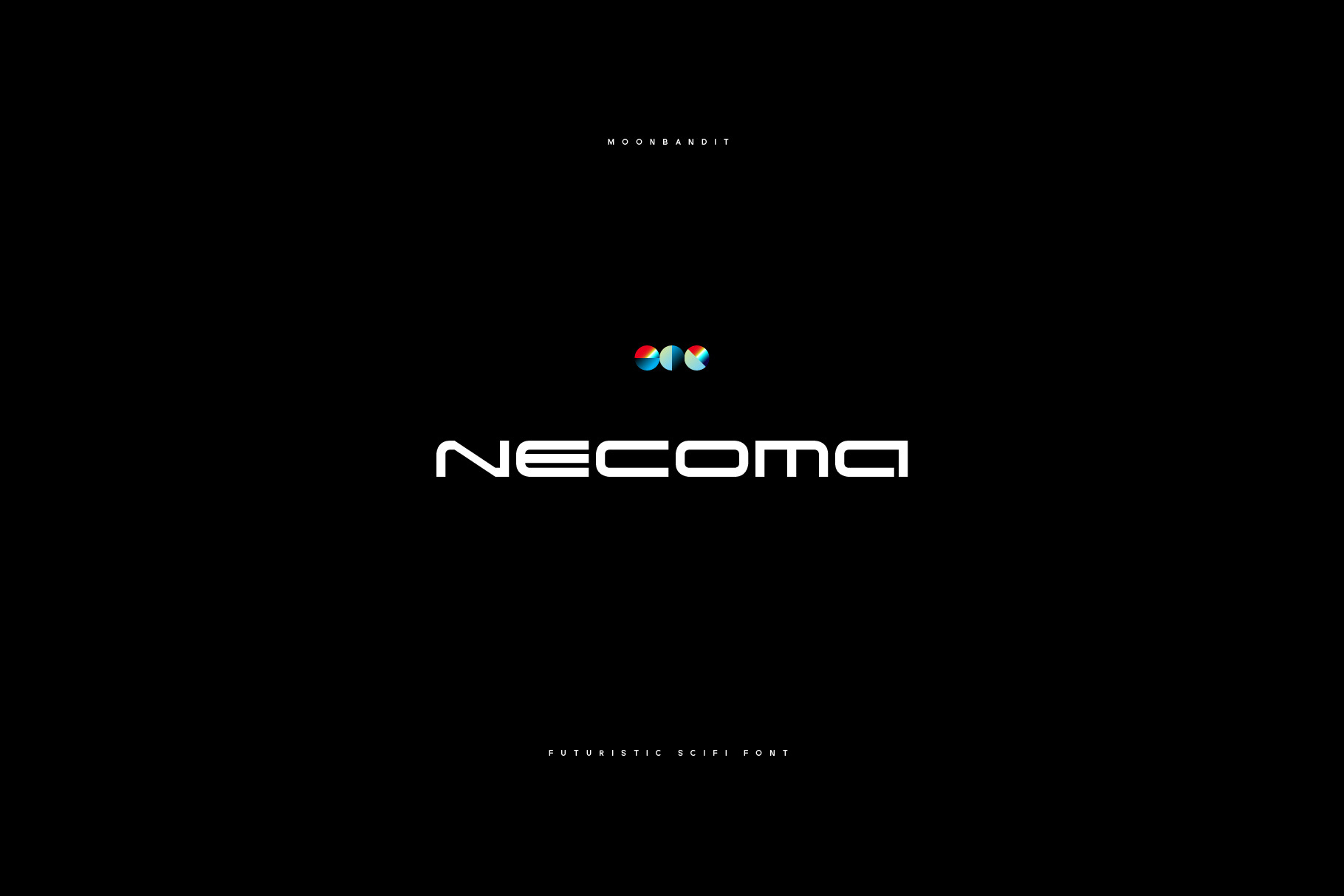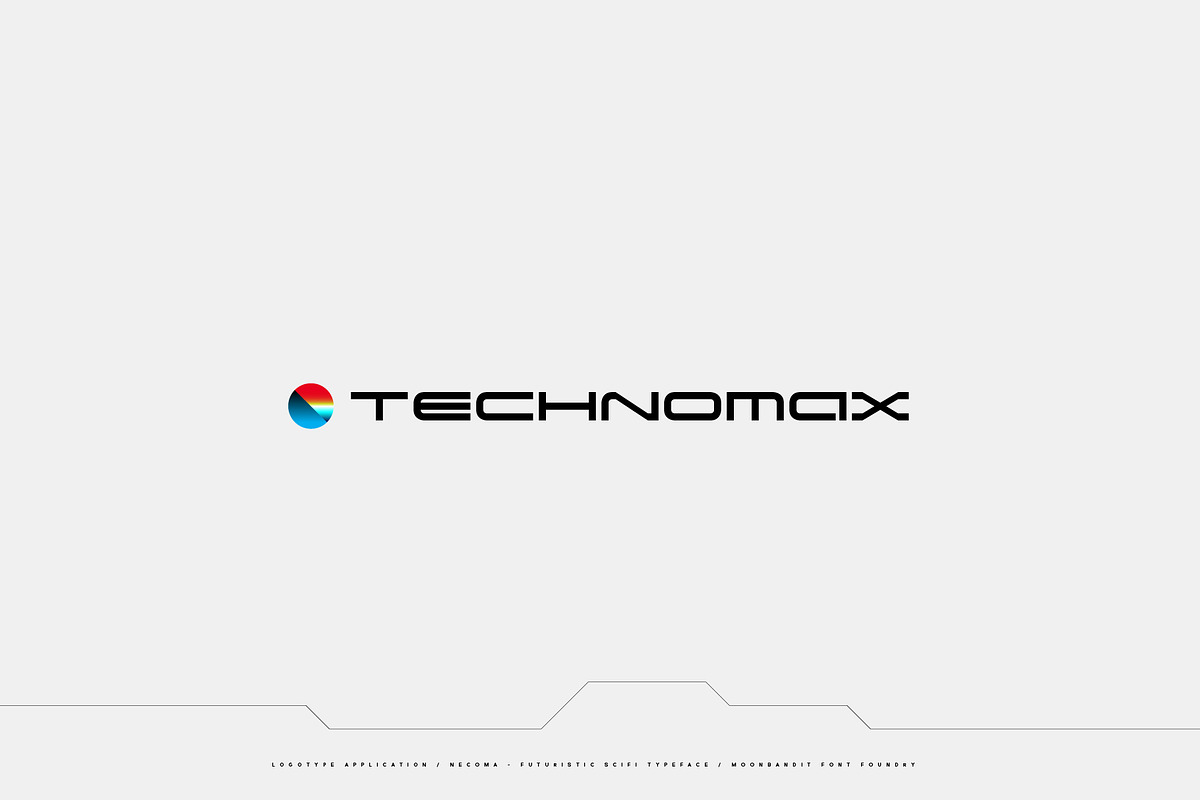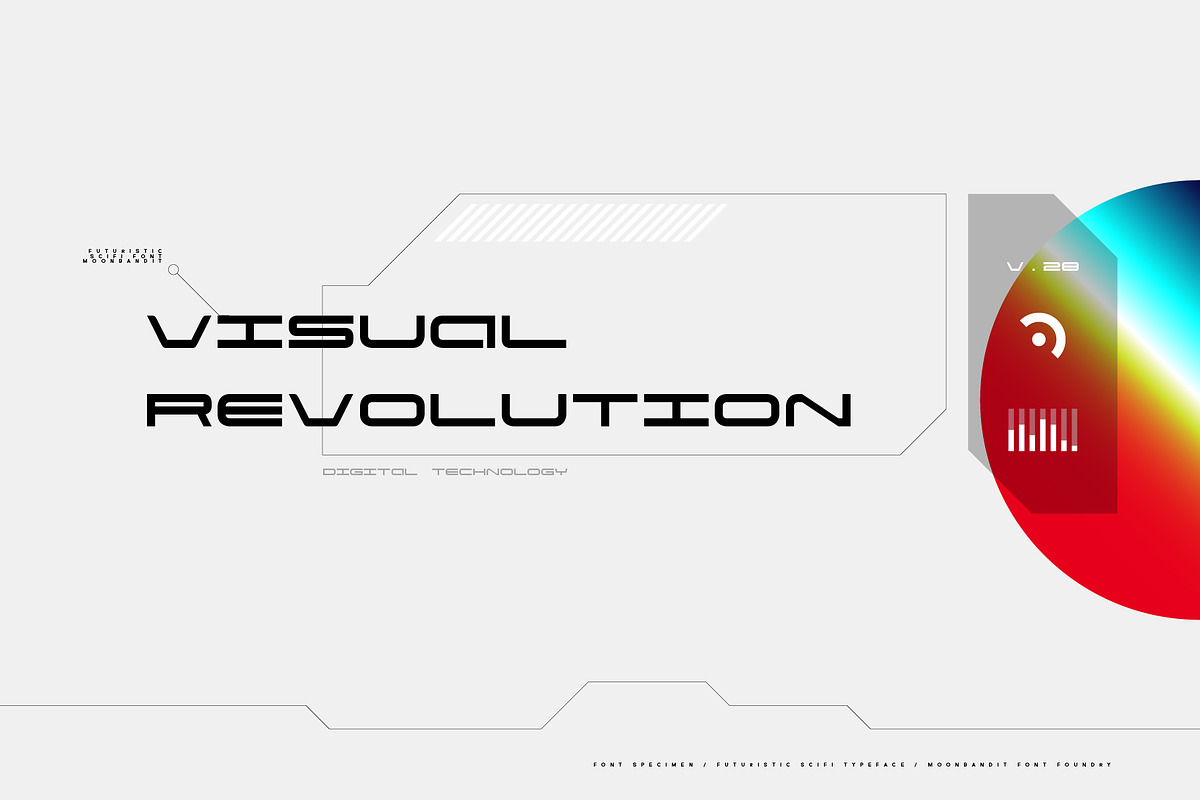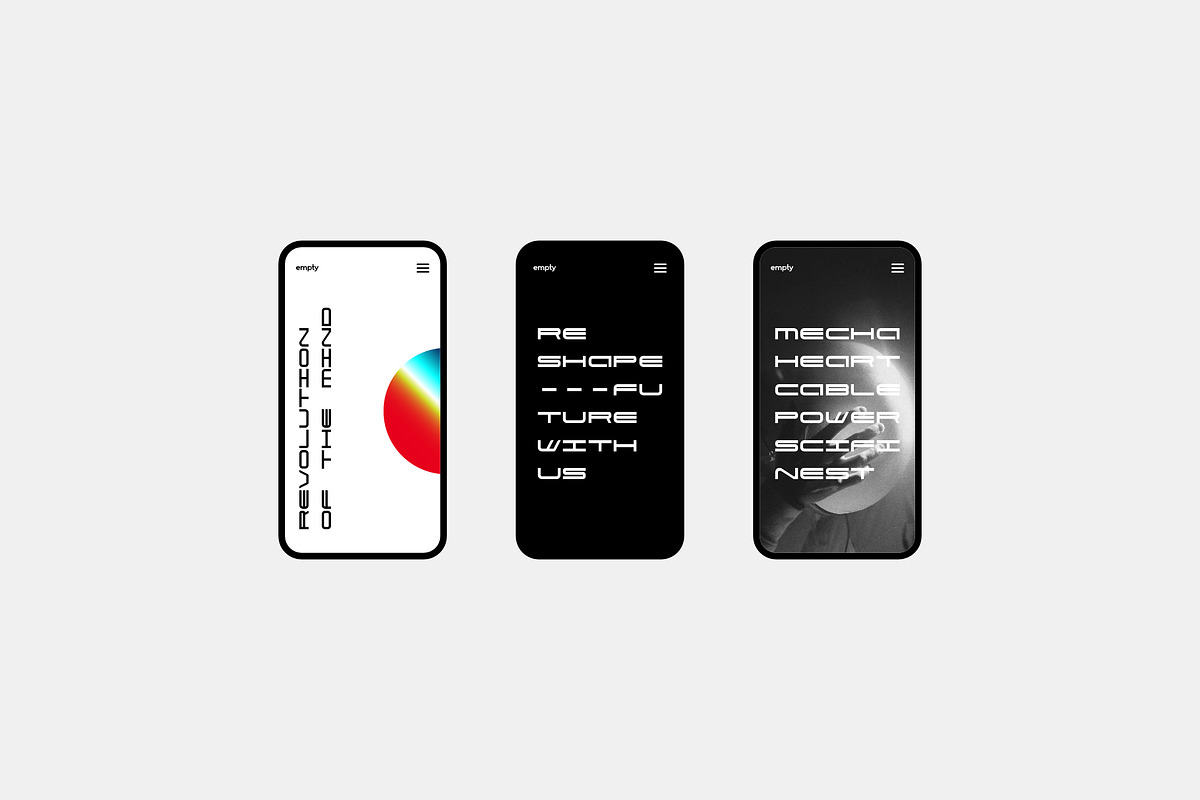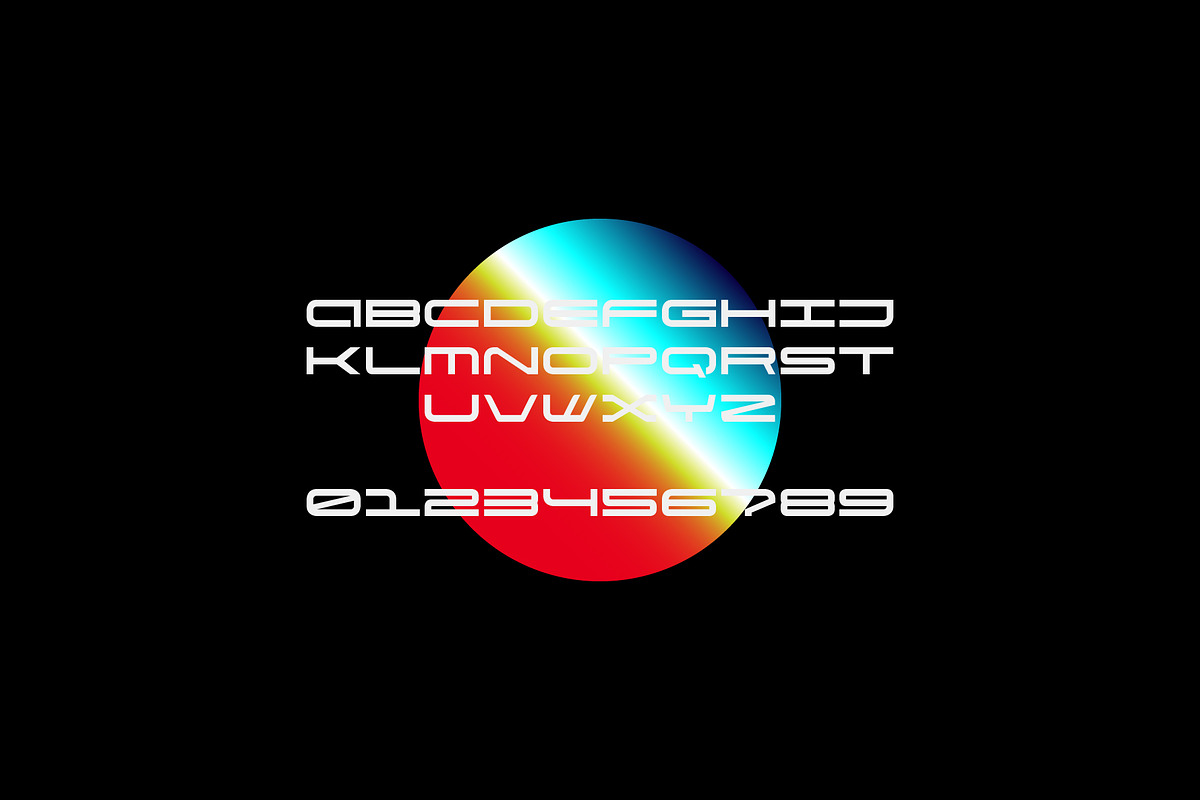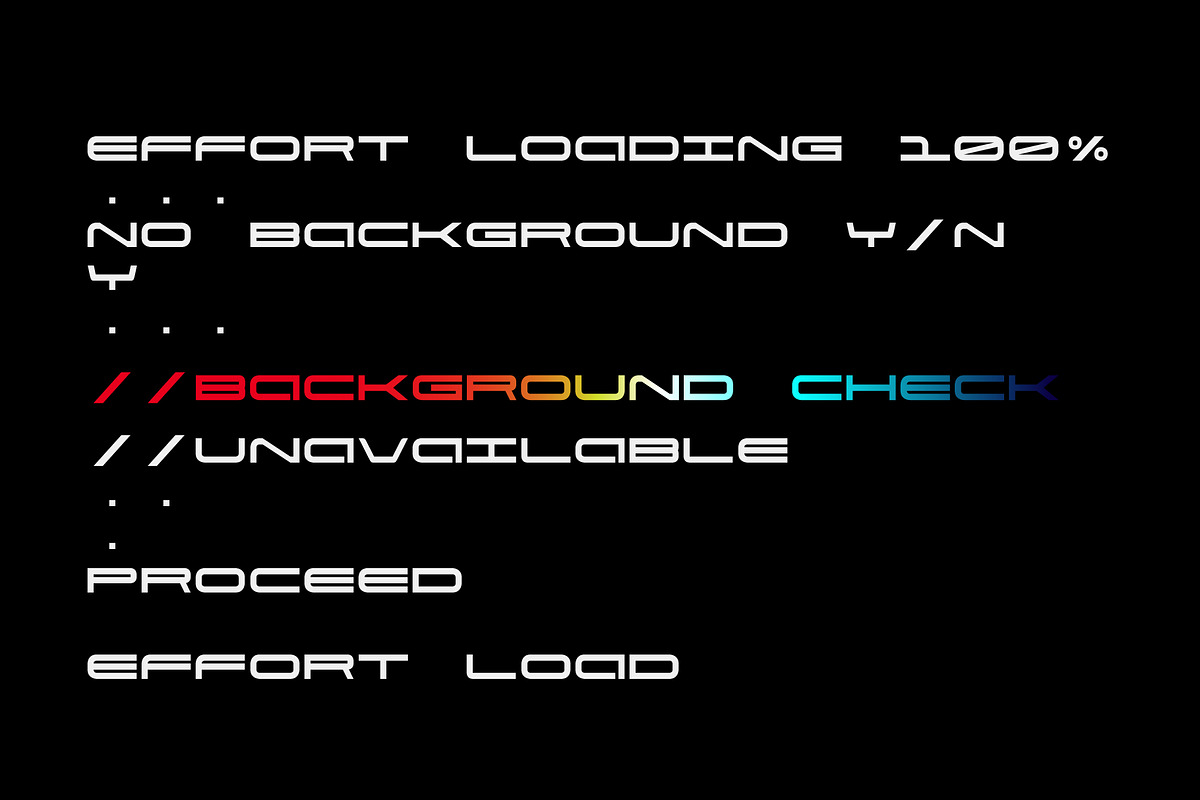
Necoma - monospace wide font
Necoma, a monospace, wide and lean with combination of rounded and sharp edge font. Necoma is a modern and clean typeface, perfect for logo, wordmark, headline or to emphasize any modern scifi themed project.